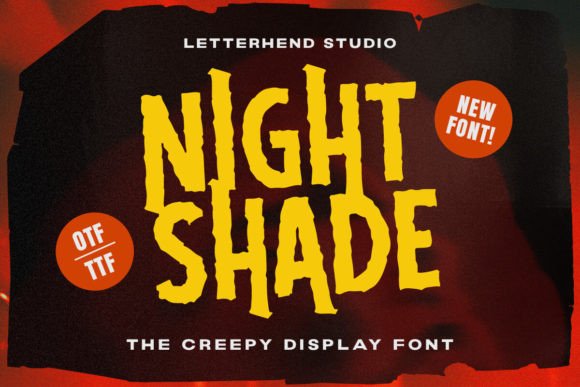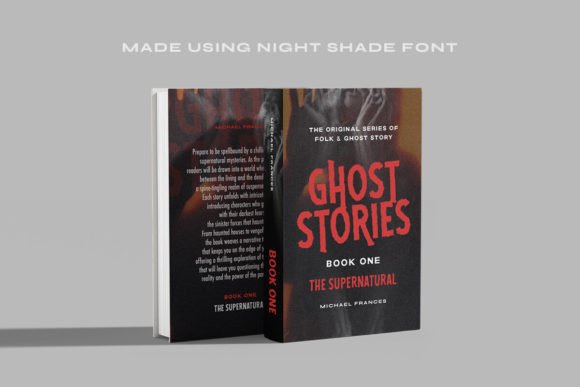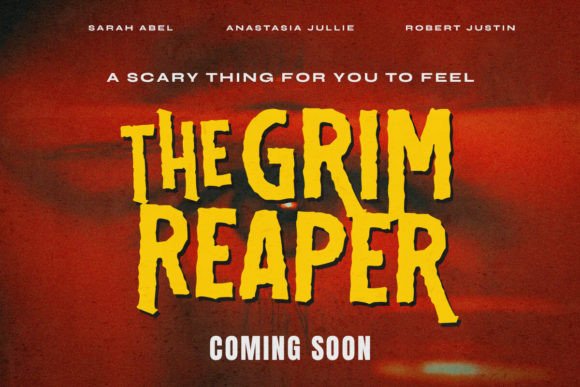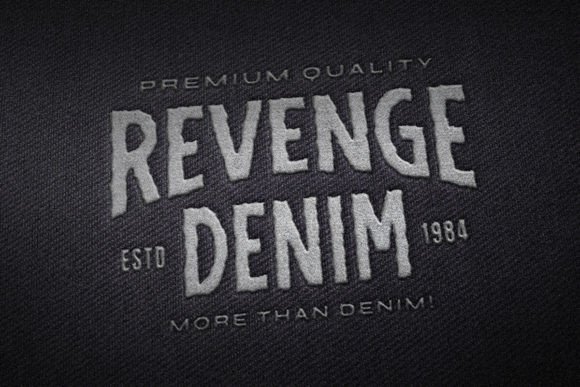
Night Side Font
About the Night Side Font
Crafted with precision, the Night Side Font is ready to bring your ideas to life. Meet Nights Side, the font that dares you to venture into the shadows where creepy and fascination intertwine. This font has an aura of spine-tingling dread, perfect for instilling suspense but playful too in your designs. Whether you’re channeling classic horror or crafting a display masterpiece, Night Side versatility is your creative companion.
Night Side excels as a display font for headlines, posters, and branding projects requiring a bold, slightly ominous presence. Its unique character works well for horror-themed designs, gothic aesthetics, or projects aiming for a touch of mysterious intrigue. Avoid using it for body text or UI elements; its decorative nature makes it unsuitable for extended reading.
Pairing Night Side effectively depends on the desired effect. For a balanced contrast, consider pairing it with a clean sans-serif like Open Sans or a classic serif like Garamond. To emphasize its playful side, a rounded geometric sans-serif such as Futura might be an effective choice. For a more dramatic combination, a script font with a similar weight could work well, but ensure legibility remains paramount.
The font’s core personality is bold and dramatic, yet subtly playful. It projects a sense of mystery and intrigue, making it suitable for brands associated with suspense, fantasy, or the occult.
Night Side Font Usage Examples
Night Side Font Example